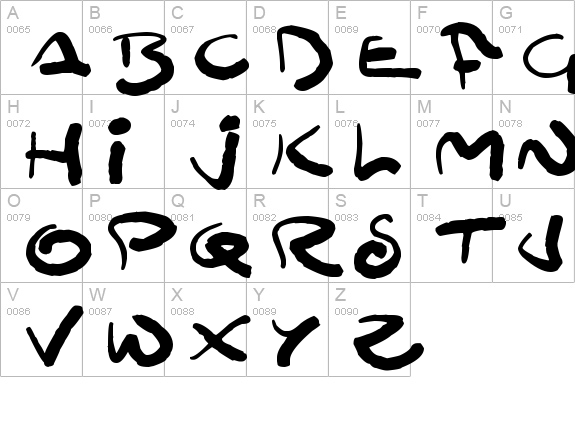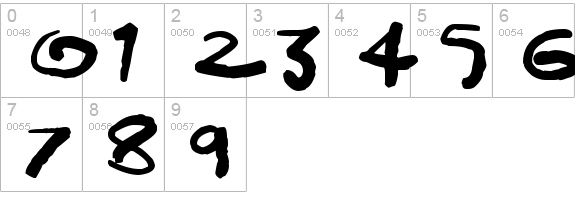
MooMoo is a free for personal use font in the Script category, designed by Darrell Flood. It has been downloaded 21 times and is available for Windows, Mac and Linux.
Introducing MooMoo font, a charming and whimsical typeface that is sure to bring joy to your design projects. The playful curves and quirky details of MooMoo make it perfect for adding a touch of fun and creativity to any design. Whether you're working on a children's book, a party invitation, or a branding project, MooMoo is sure to make a statement.